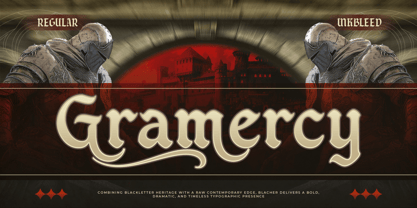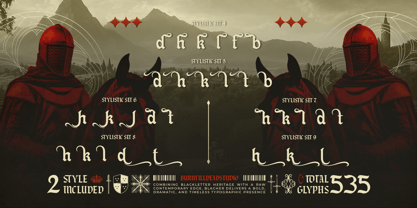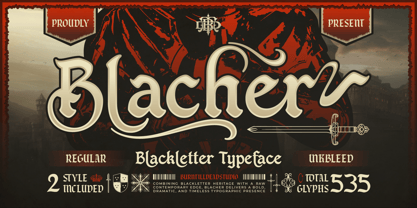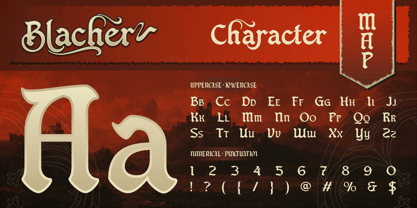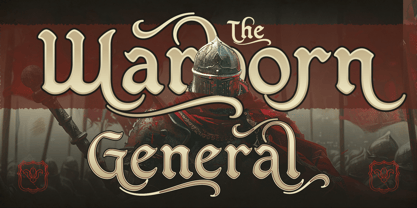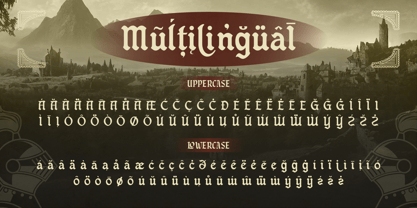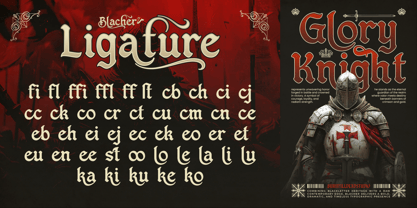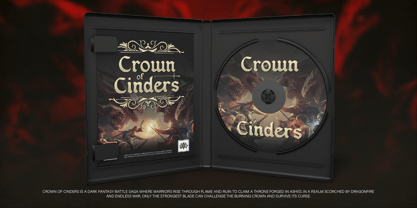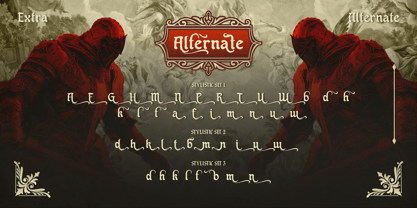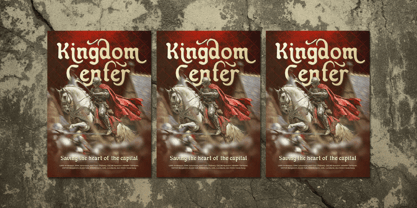
Blacher
by Burntilldead
The Blacher Font Family was designed by Eric Kurniawan and published by Burntilldead. Blacher contains 2 styles and family package options. More about this family
Blacher is a bold blackletter typeface that blends classic medieval vibes with a clean contemporary touch. Designed to stand strong and look powerful, this font brings a dramatic and timeless feel to any project. With its sharp yet elegant letterforms, Blacher is perfect for designs that need a strong historical character but still feel modern and readable. The carefully crafted alternates give you plenty of creative freedom to build unique and eye-catching typography. Whether you're working on branding, posters, merchandise, or editorial layouts, Blacher helps your text look confident and rich. Also perfect for medieval & fantasy themes, album covers & band merch, vintage branding, posters & headlines, gaming and cinematic titles.